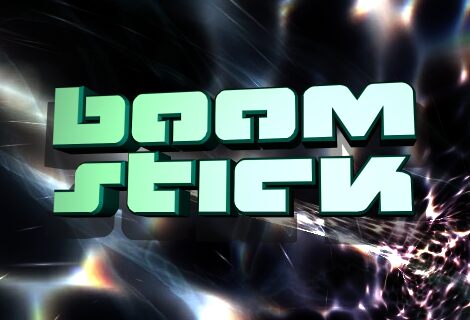
Boomstick Semi-Leftalic
Boomstick Semi-Leftalic by Iconian Fonts is a bold, futuristic display typeface that captures attention with its expanded and striking letterforms. The unique left-aligned slant adds a distinctive dynamic to the design, imparting a sense of motion and modernity. This font's aesthetic is perfect for making bold statements across various media.
Due to its conspicuous and strong visual characteristics, Boomstick Semi-Leftalic excels in contexts demanding high impact such as headlines, posters, and branding for innovative tech products or events. Its expansive style ensures legibility from afar while injecting a futuristic flair into any design project.